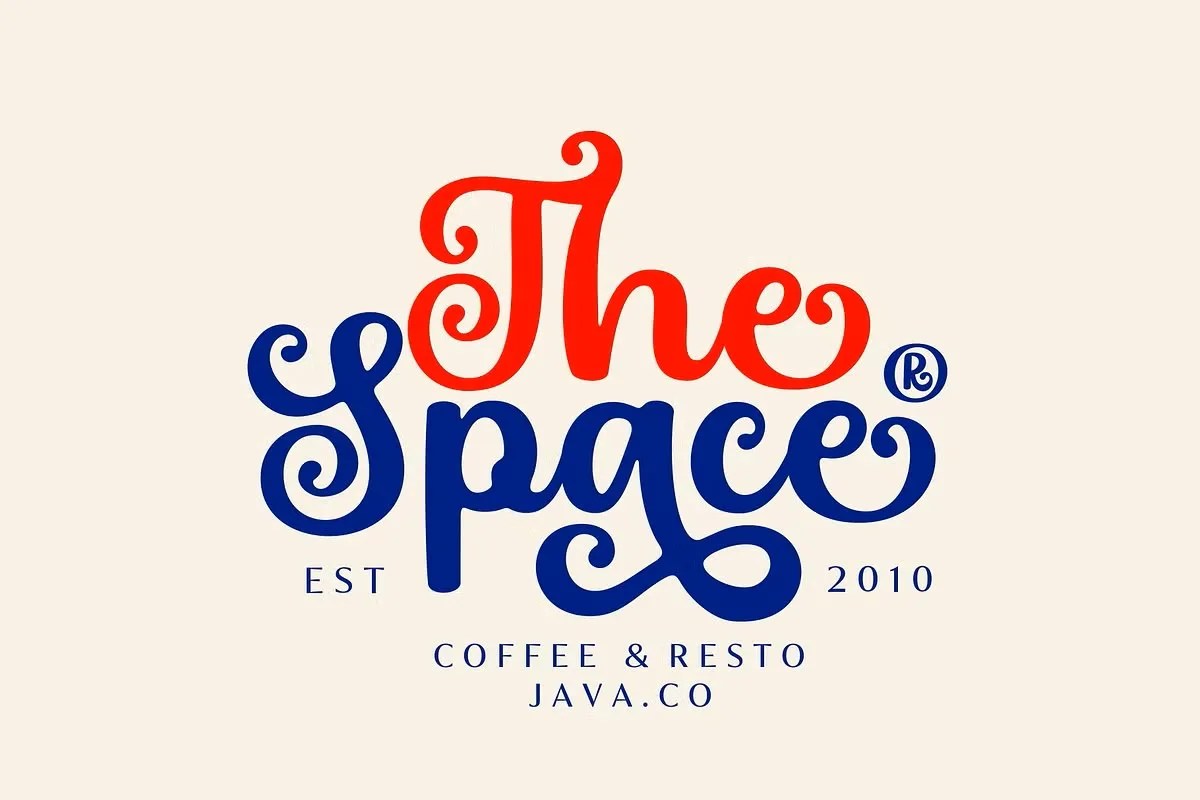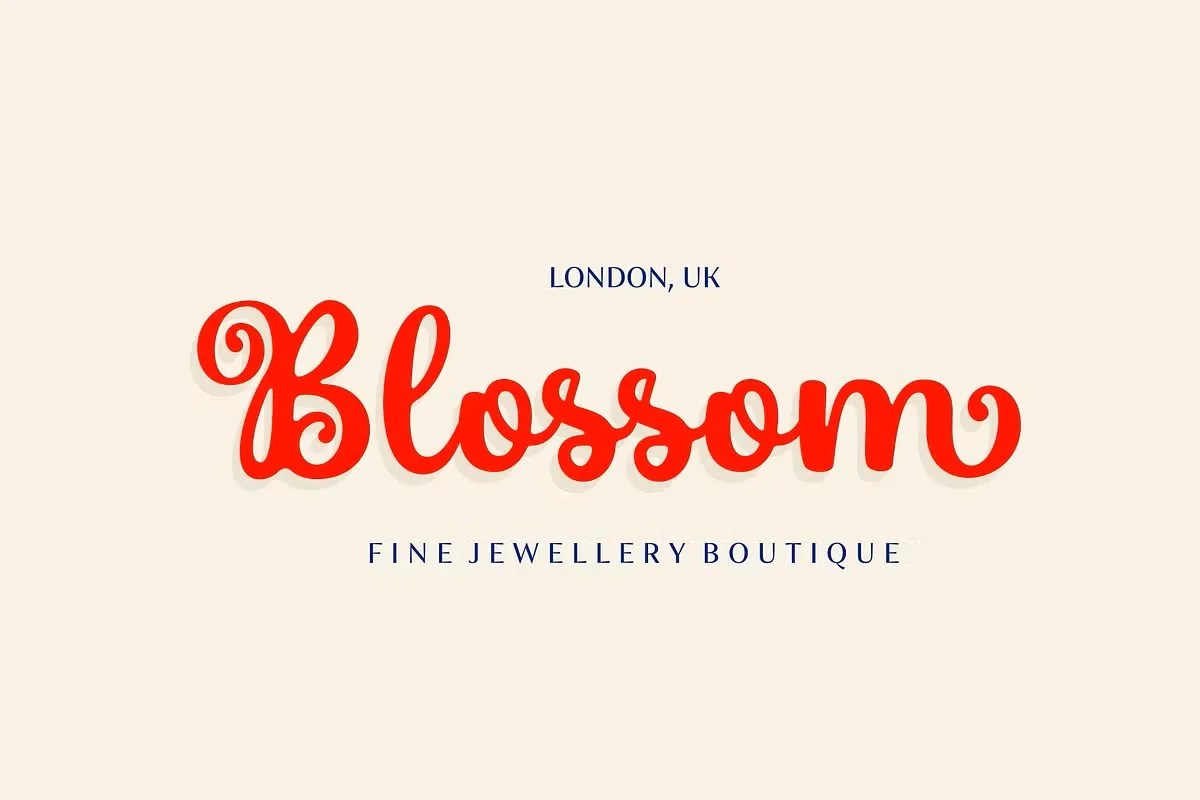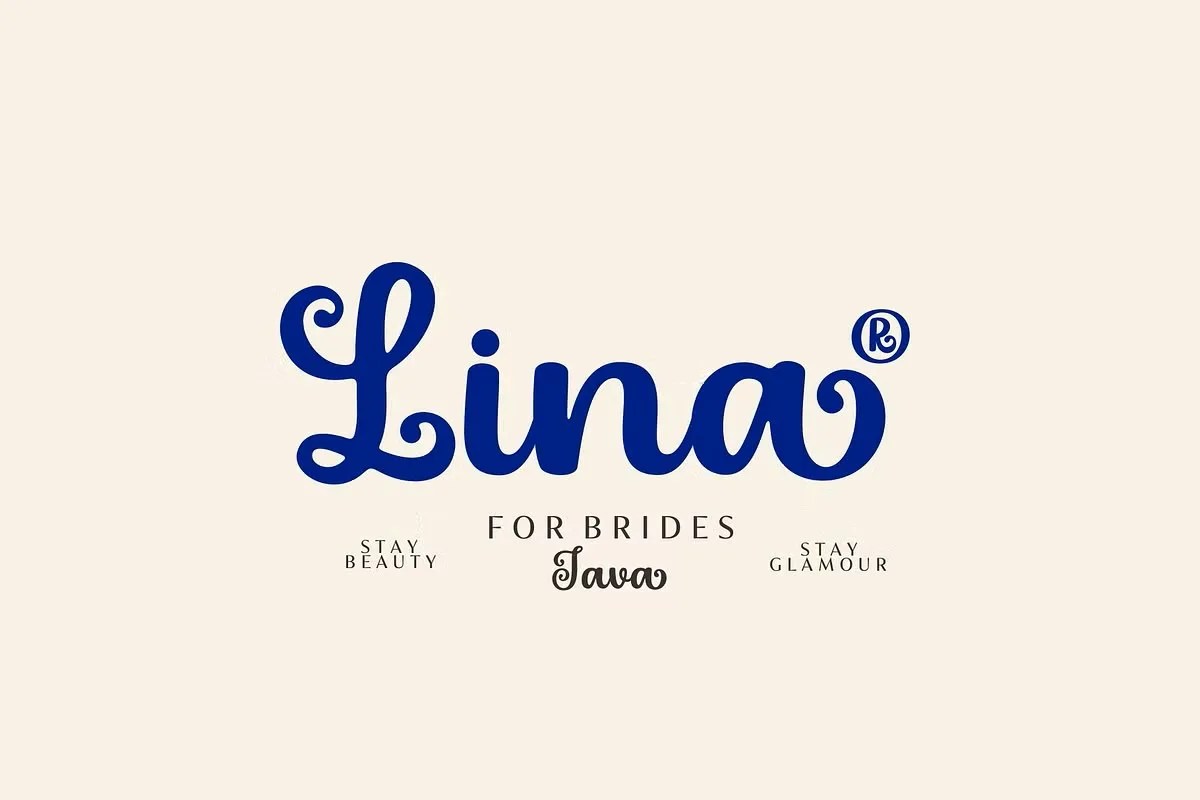
Filma by HRDR. This is a stunning vintage script font that beautifully captures the nostalgia of classic movie titles and neon signs. Its letters flow across the page with a smooth, confident, and stylish rhythm. The font instantly brings a touch of retro glamour to any creative project. Filma is the perfect choice for designs that need to evoke a sense of nostalgia, drama, and timeless style, all with a polished finish.
This font is incredibly effective for creating a specific and memorable mood. Specifically, its cinematic quality makes it an ideal choice for movie posters, short film titles, and YouTube channel branding. Imagine it as the logo for a retro-inspired clothing brand or a classic car club. Furthermore, this vintage script font helps content creators build a powerful brand identity. It can instantly make a thumbnail or a social media graphic feel nostalgic and cool. Use it for any personal project that needs a touch of Hollywood magic.
• Nostalgic vintage script style
• Features smooth, flowing letter connections
• Ideal for logos, posters, and video titles
• Adds a retro and cinematic touch